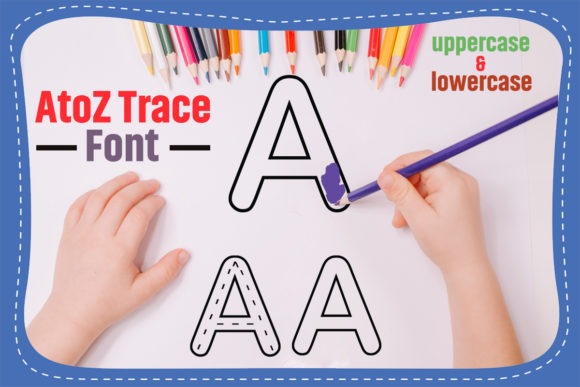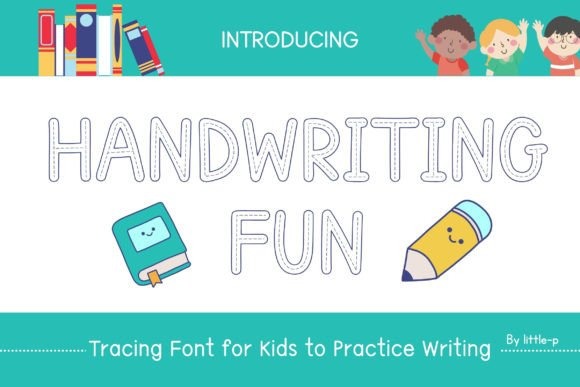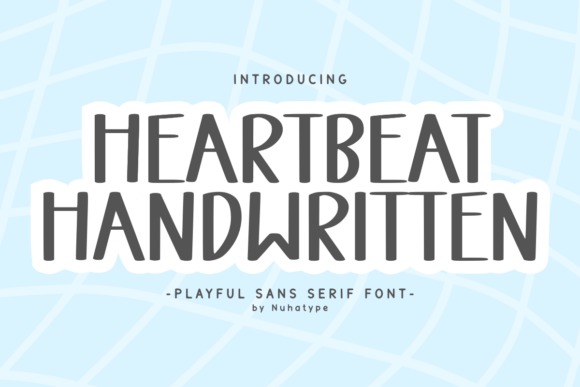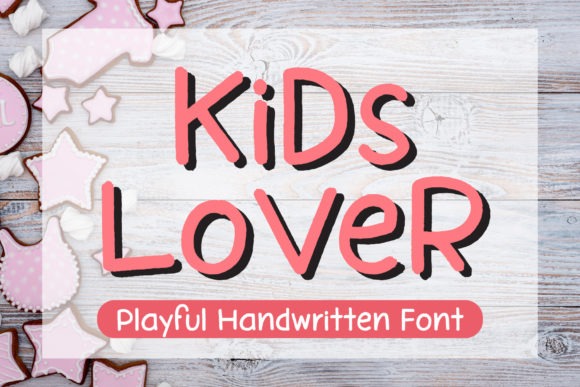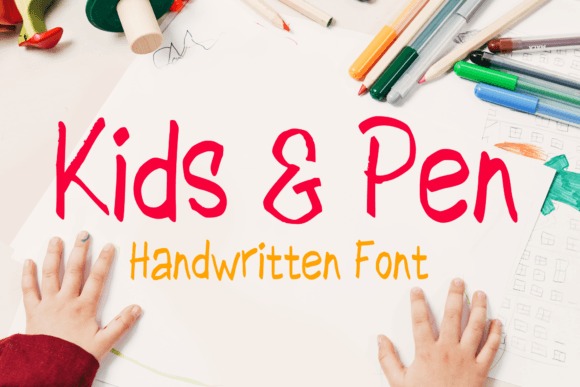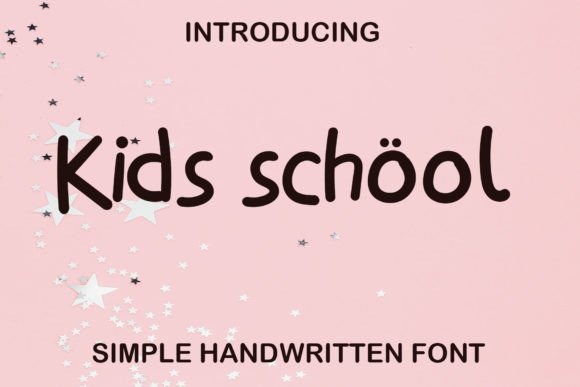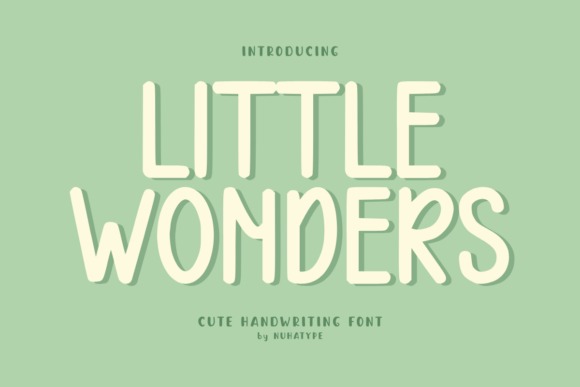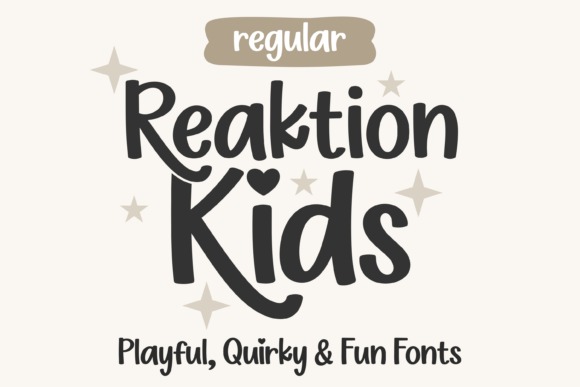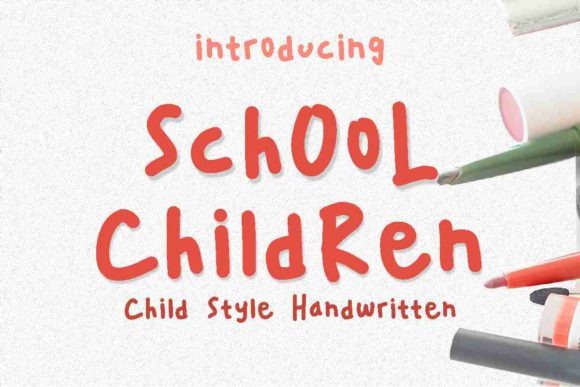
Choosing Fun Handwriting Fonts for Kids Printable Worksheets
Fun handwriting fonts for kids can give printable worksheets the friendly, informal look of a teacher’s notes without turning every page into a visual distraction. For worksheets, I favor fonts with open shapes, recognizable letters, comfortable spacing, and enough personality to make activities inviting. The most decorative options are usually better for titles and rewards than full instructions.
I also separate handwriting-style fonts from actual handwriting-practice fonts. A casual handwritten typeface can make vocabulary sheets, matching games, and classroom labels feel approachable, while dotted or directional fonts are more useful when children need to trace letters. That distinction matters because handwriting activities commonly progress from tracing toward copying and independent writing.
The best fun handwriting fonts for kids printable worksheets combine clear letterforms with a playful, child-friendly tone. For actual letter practice, I’d prioritize Handwriting Fun, Tracing Fun, AtoZ Trace for Kids, or Tracing Pro. For worksheet headings, instructions, games, and labels, softer choices such as Reaktion Kids Regular, Kids School, and Little Wonders add personality without making the page feel too formal.
- Best for guided tracing: Tracing Fun — regular, dotted, and directional styles make it the most flexible practice option.
- Best for alphabet practice: Handwriting Fun — clear child-focused letterforms for beginner worksheets.
- Best dotted option: Tracing Pro — simple dotted forms for repeatable handwriting drills.
- Best for general worksheets: Reaktion Kids Regular — playful enough for children while staying clean for instructions and labels.
| Font | Best for | Format/type |
|---|---|---|
| Handwriting Fun | Alphabet practice | Handwritten learning font |
| Tracing Fun | Guided tracing sheets | Regular + tracing styles |
| AtoZ Trace for Kids | Kindergarten handwriting | Tracing display font |
| Tracing Pro | Dotted practice lines | Dotted tracing font |
| Tosca Berry | Worksheet prompts | Rounded handwriting font |
| Reaktion Kids Regular | General classroom printables | Playful handwritten font |
| Kids Chalk | School-themed pages | Chalk handwriting font |
| Kids School | Simple worksheet headings | Casual handwritten font |
| Kids & Pen | Activity-sheet titles | Playful handwritten font |
| School Children | Early-learning printables | Delicate handwriting font |
| Kids School Style | Clean school projects | Whimsical handwritten font |
| Little Friends | Games and reward sheets | Handmade display font |
| Heartbeat Handwritten | Instructions and labels | Soft handwritten sans serif |
| Little Wonders | Teacher printables | Friendly handwriting font |
| Star Kids | Fun worksheet headings | Childlike handwritten font |
| Kids Lover | School labels and prompts | Simple handwritten font |
How I Picked These Fonts
I compared these fonts by the job they need to do on a real worksheet rather than by decoration alone. I prioritized recognizable letter shapes, spacing, suitability for tracing or short instructions, child-friendly personality, and whether the style makes sense for practice pages, classroom activities, or headings. I also separated dedicated tracing fonts from general handwritten display fonts so readers can choose by learning goal instead of assuming every playful alphabet works the same way.
16 Fun Handwriting Fonts for Kids Worksheets
1. Handwriting Fun
Handwriting Fun is an alphabet-style handwritten font aimed specifically at children learning letter formation, so it is one of my first picks for straightforward handwriting worksheets. Creative Fabrica describes it for studying, worksheets, schools, kindergarten, and elementary learning materials.
I’d use it when the letters themselves need to feel approachable rather than decorative. It is especially useful for alphabet examples, copy-the-word activities, simple spelling prompts, and printable practice pages. For long explanations, I’d still pair it with a neutral sans serif so young readers have a clear visual hierarchy.
Best for: alphabet worksheets, beginner writing practice, classroom learning sheets
Key features: clear alphabet forms, child-focused style, handwritten appearance
2. Tracing Fun
Tracing Fun is made for alphabet-writing practice and includes Regular, Outline Dotted with Arrow, and Dotted with Arrow styles. That combination makes it far more practical for a handwriting worksheet than a decorative handwritten font alone because the same visual family can support examples and guided tracing.
For activity sheets that are not teaching handwriting itself, I’d focus on the simpler handwritten options and use decorative styles such as Kids Chalk, Little Friends, or Star Kids selectively. The goal is not to make every line look playful; it is to make the worksheet inviting while keeping the learning task easy to understand.